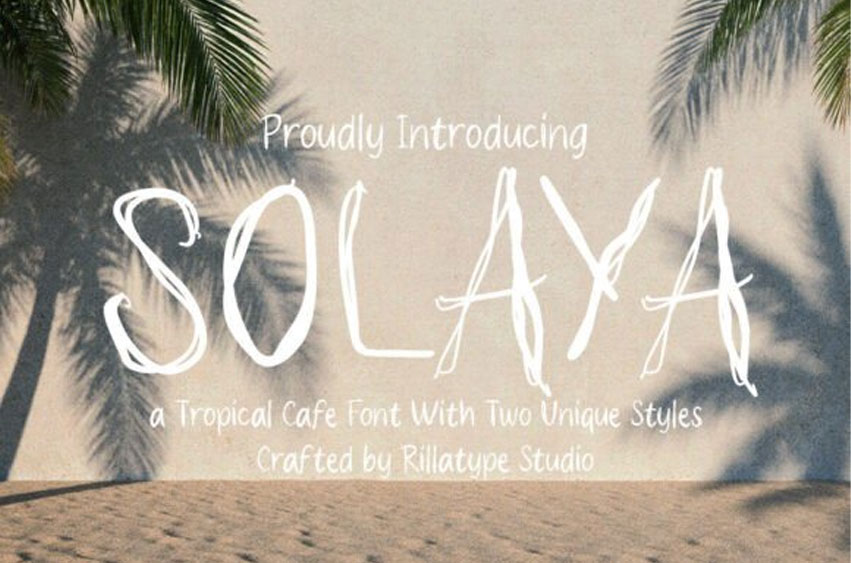
Solaya Raw Font
Solaya Raw Font is a handwritten font duo inspired by the warmth and rhythm of tropical cafés — places where morning light filters through leaves and coffee is savored, not rushed.
Crafted to capture that inviting atmosphere, Solaya blends the imperfect charm of hand lettering with the calm elegance of soft curves. It’s an ideal choice for cafés, branding, packaging, lifestyle visuals, and any creative project that calls for a relaxed, natural touch.
This typeface includes two unique styles:
Solaya Raw Font – a loose, free-flowing handwritten look
Solaya Neat Fony – a cleaner, more structured version that still carries the same tropical soul